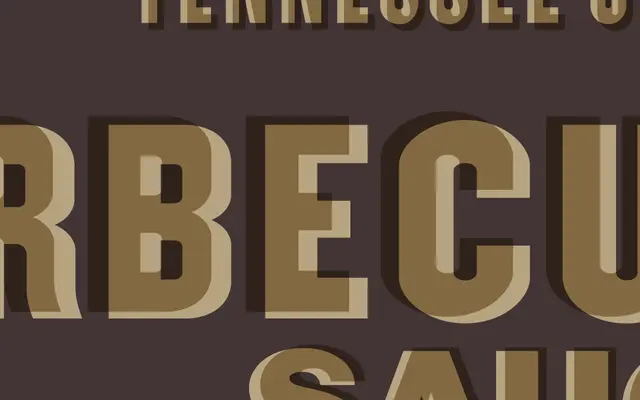
Champion Gothic
Hoefler & Co · Jonathan Hoefler · 1990
Champion Gothic specimen from Hoefler & Co
A six-cut wood-type gothic by Jonathan Hoefler, originally drawn for Sports Illustrated and named after boxing weight classes, built for sports and editorial headlines.
A wood-type gothic by Jonathan Hoefler, commissioned by Sports Illustrated in 1990 and built from a survey of nineteenth-century American wood type. Six cuts named for boxing weight classes, Lightweight, Welterweight, Middleweight, Featherweight, Bantamweight and Heavyweight, run from light condensed to ultrabold compressed, each tuned for headlines rather than text. The family is most familiar from American sports magazines and broadcast graphics, where its blocky, slightly irregular contours read as muscular and old-American.
H&Co classify Champion Gothic as a family of six sans serifs at different widths and weights, modelled on nineteenth-century American wood type. Originally commissioned by Sports Illustrated, with each cut named after a boxing weight class.
LightweightWelterweightMiddleweightFeatherweightBantamweightHeavyweight